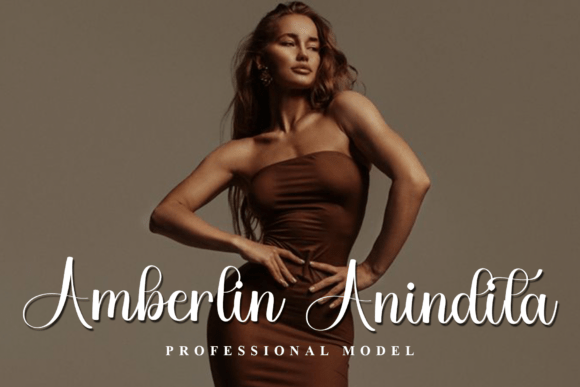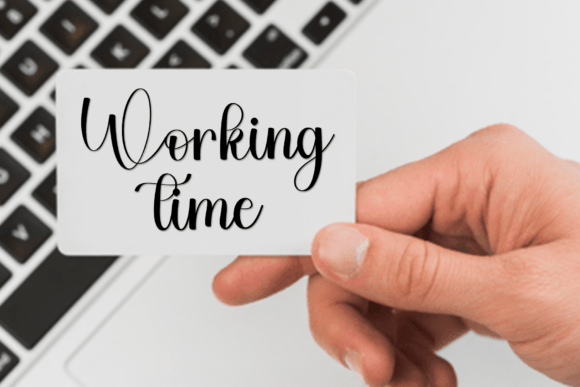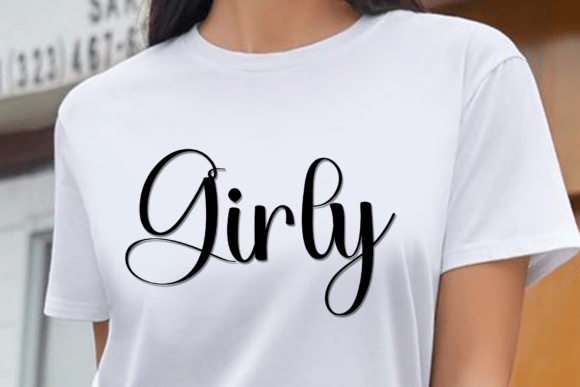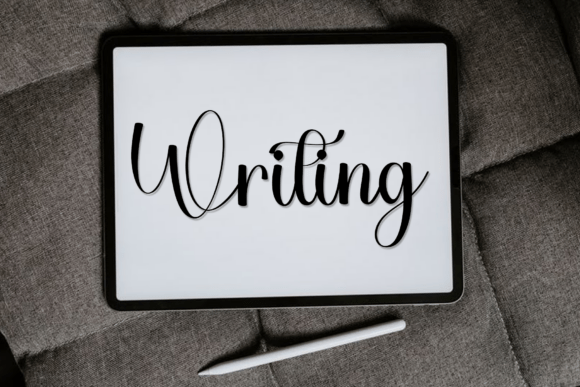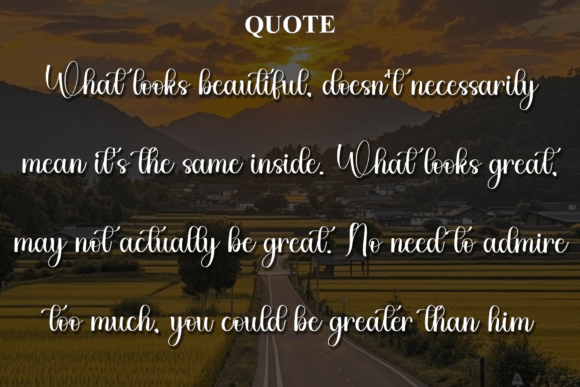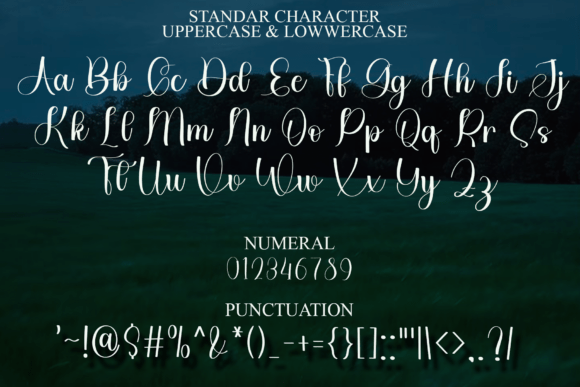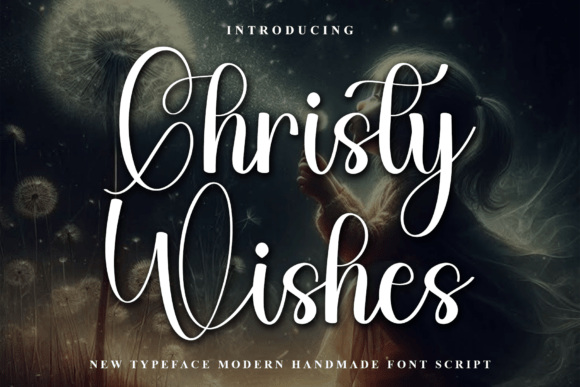
Introducing Christy Wishes Font: The Perfect Blend of Casual and Creative
Are you tired of using the same old fonts for your personal projects, invitations, and social media graphics? Look no further than Christy Wishes Font, a charming and creative typeface that exudes warmth and friendliness. With its round, playful strokes and hand-drawn aesthetic, Christy Wishes is the perfect addition to any designer’s toolkit.
The Characteristics of Christy Wishes Font
Christy Wishes Font is a casual and creative font that is designed to create a relaxed and approachable feel. Its round, playful strokes give it a unique and charming personality that is sure to capture the attention of your audience. Whether you’re working on a personal project, creating invitations for a special occasion, or designing social media graphics, Christy Wishes Font is the perfect choice.
What Makes Christy Wishes Font So Special?
The Benefits of Using Christy Wishes Font
So why should you choose Christy Wishes Font for your next design project? Here are just a few benefits of using this amazing font:
- Warm and Friendly Aesthetic: Christy Wishes Font has a warm and friendly aesthetic that is perfect for creating a relaxed and approachable feel.
- Unique and Charming Personality: The font’s round, playful strokes give it a unique and charming personality that is sure to capture the attention of your audience.
- Perfect for Personal Projects: Christy Wishes Font is perfect for personal projects, invitations, and social media graphics.
How to Use Christy Wishes Font in Your Designs
Using Christy Wishes Font in your designs is easy. Here are a few tips to get you started:
- Pair it with Other Fonts: Christy Wishes Font pairs well with other fonts, so feel free to experiment with different combinations to find the perfect look for your design.
- Use it for Headings and Titles: Christy Wishes Font is perfect for headings and titles, where its playful and charming personality can really shine.
- Add it to Your Social Media Graphics: Christy Wishes Font is a great addition to social media graphics, where its warm and friendly aesthetic can help to engage your audience.
Tips and Tricks for Working with Christy Wishes Font
Here are a few tips and tricks to help you get the most out of Christy Wishes Font:
- Experiment with Different Sizes: Christy Wishes Font looks great in a variety of sizes, so don’t be afraid to experiment to find the perfect size for your design.
- Use it in Combination with Images: Christy Wishes Font looks great in combination with images, so consider using it to add text to your photos and illustrations.
- Make it Your Own: Don’t be afraid to make Christy Wishes Font your own by adjusting the color, texture, and other design elements to fit your brand and style.